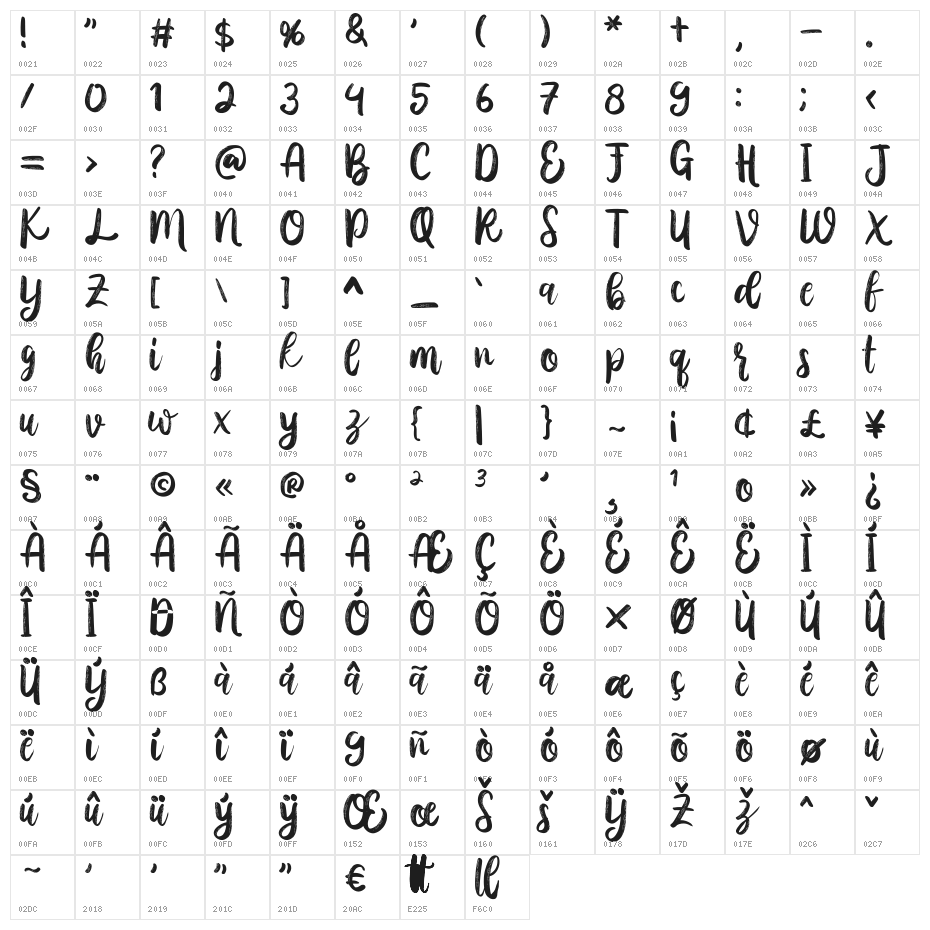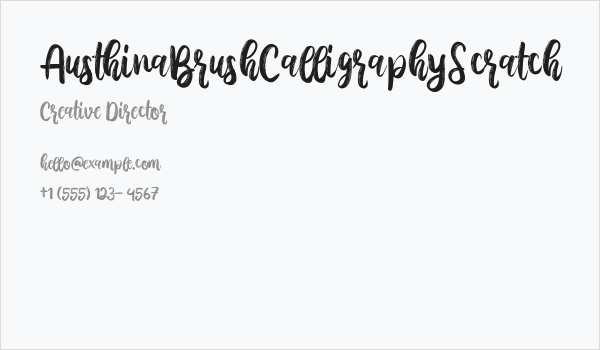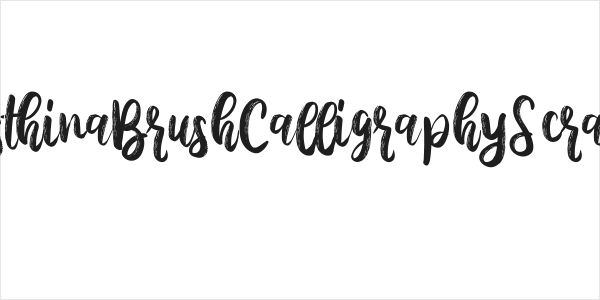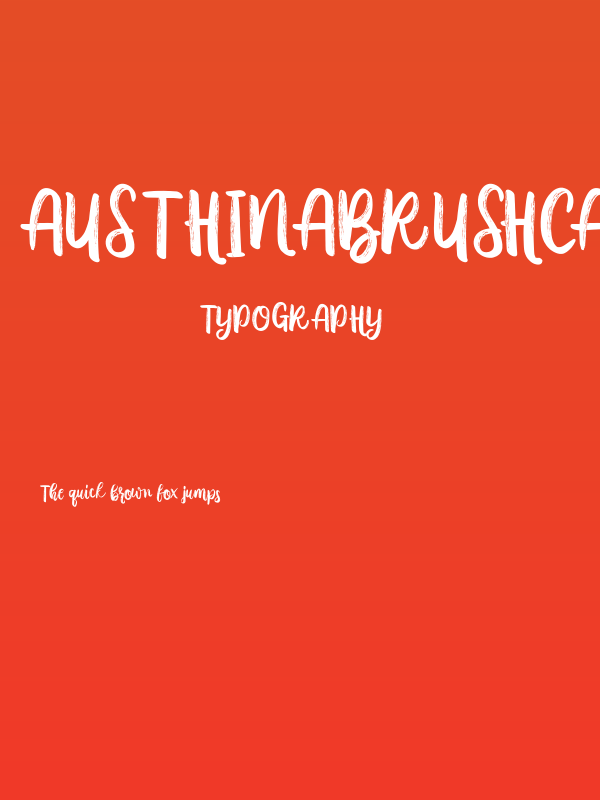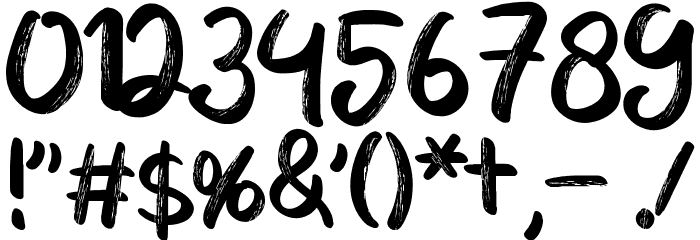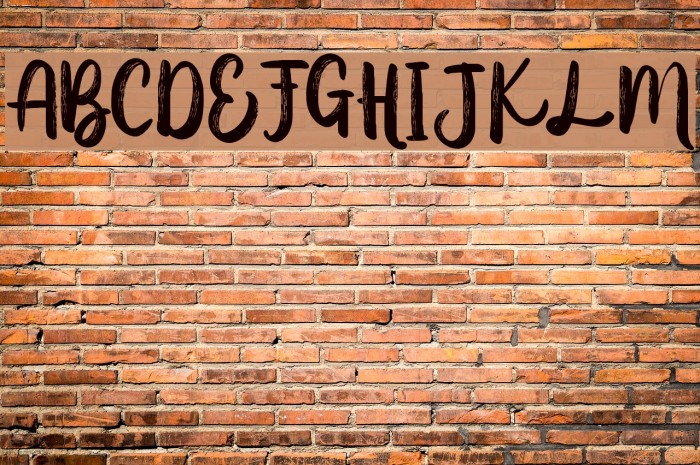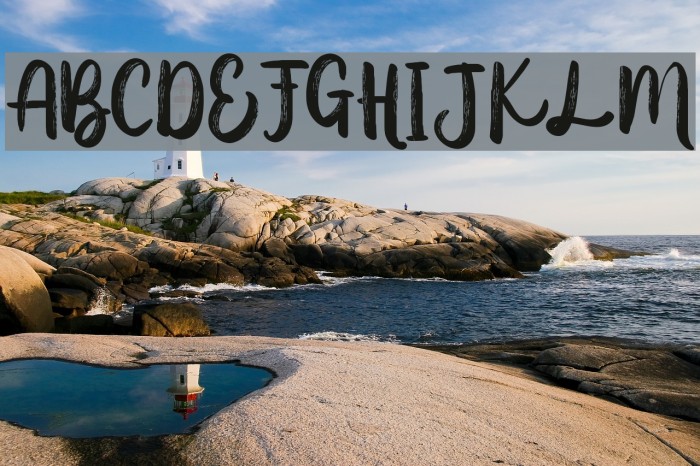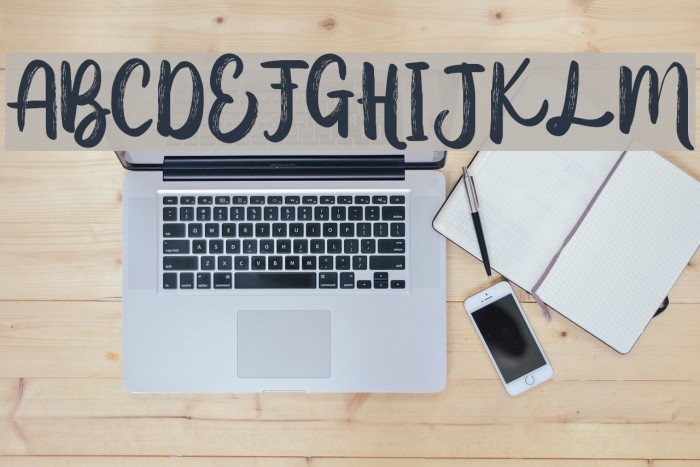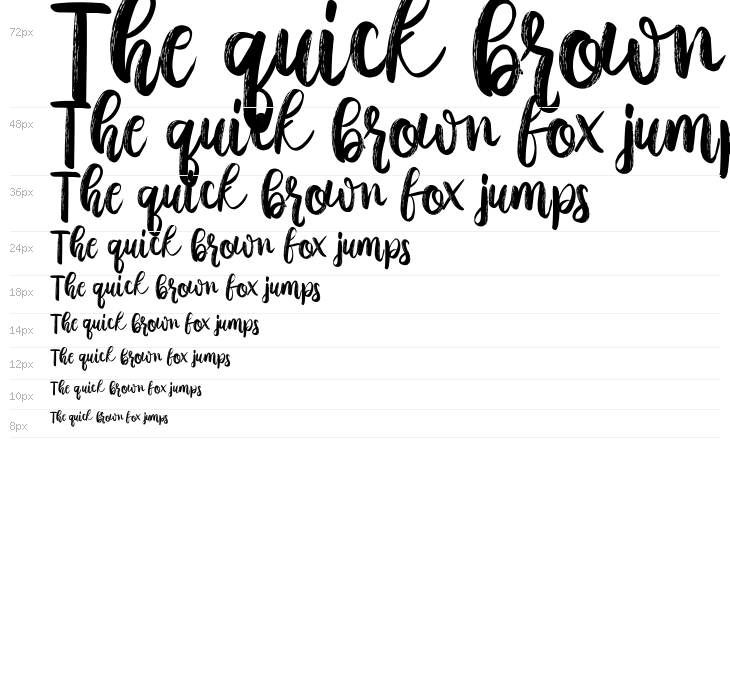
AusthinaBrushCalligraphyScratch Font
AusthinaBrushCalligraphyScratch Description
This font exudes a dynamic and artistic flair, characterized by its brush-like strokes that convey a sense of movement and energy. The letters are crafted with a scratchy texture, adding a raw and organic feel to the overall design. Each character flows into the next with a natural rhythm, making it ideal for projects that require a personal touch. The uppercase and lowercase letters maintain a consistent style, while the numerals and special characters complement the alphabet with their bold and expressive forms. This font is perfect for creative projects that aim to capture attention and convey a sense of individuality.
| Proposed Projects | Ideal for branding, invitations, posters, and any design that requires a personal, artistic touch. |